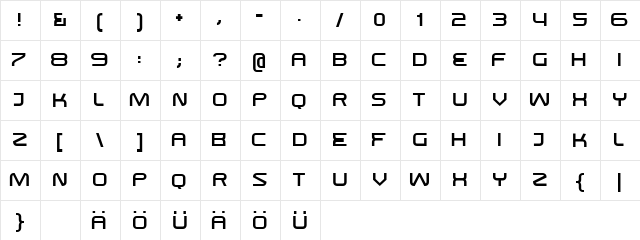
Swisz Regular
Design Context for Swisz Typeface
Swisz is a composed and adaptable typeface that performs quietly and consistently across a wide range of design contexts.